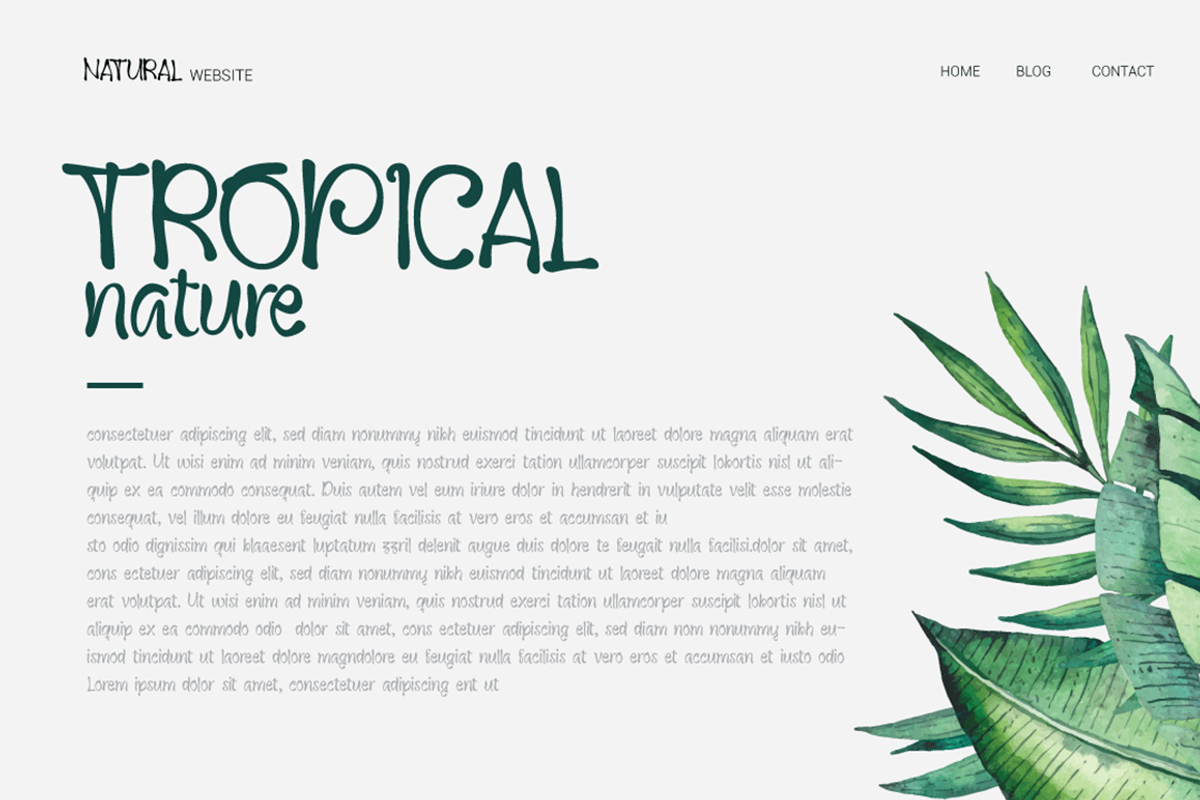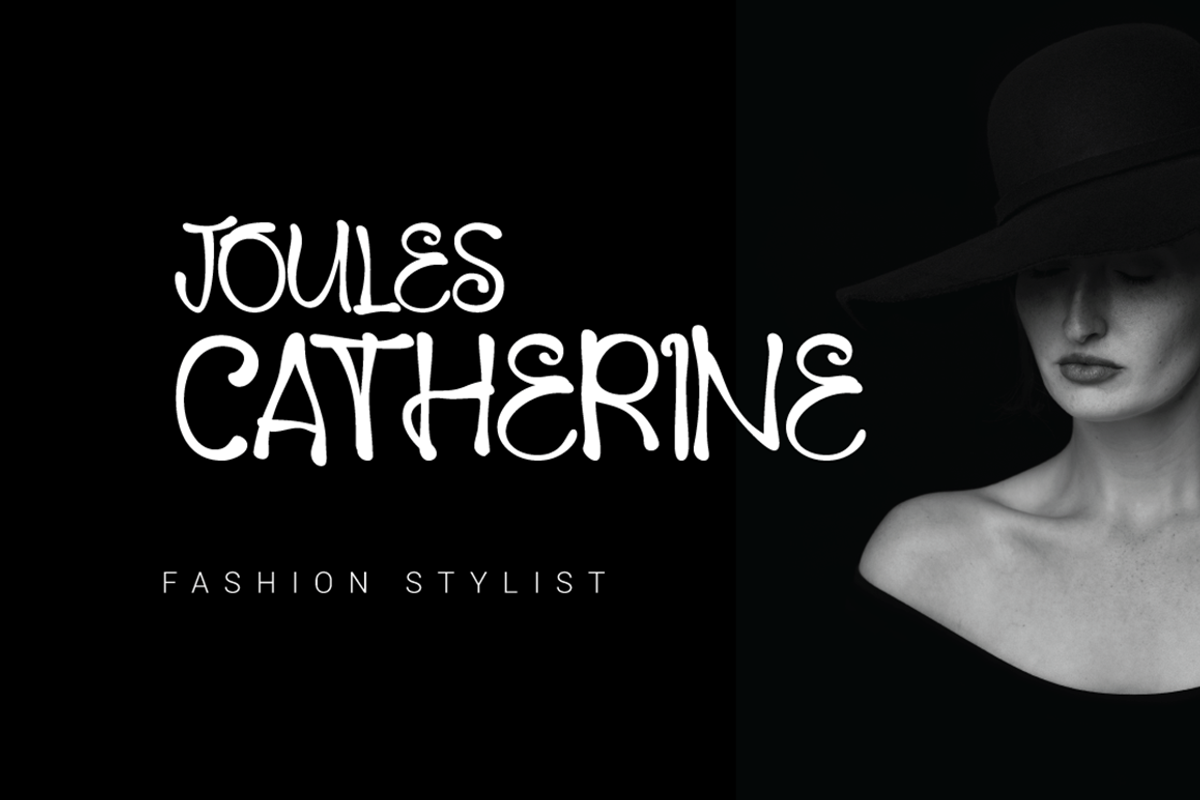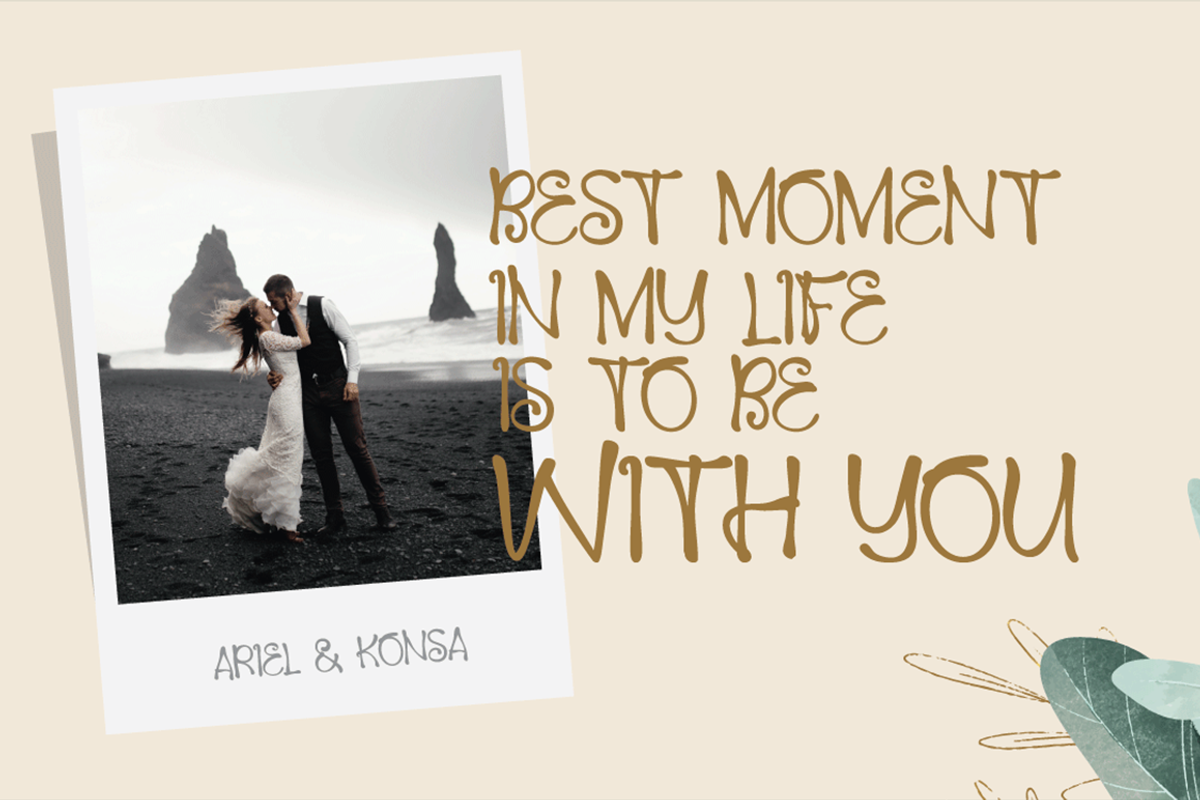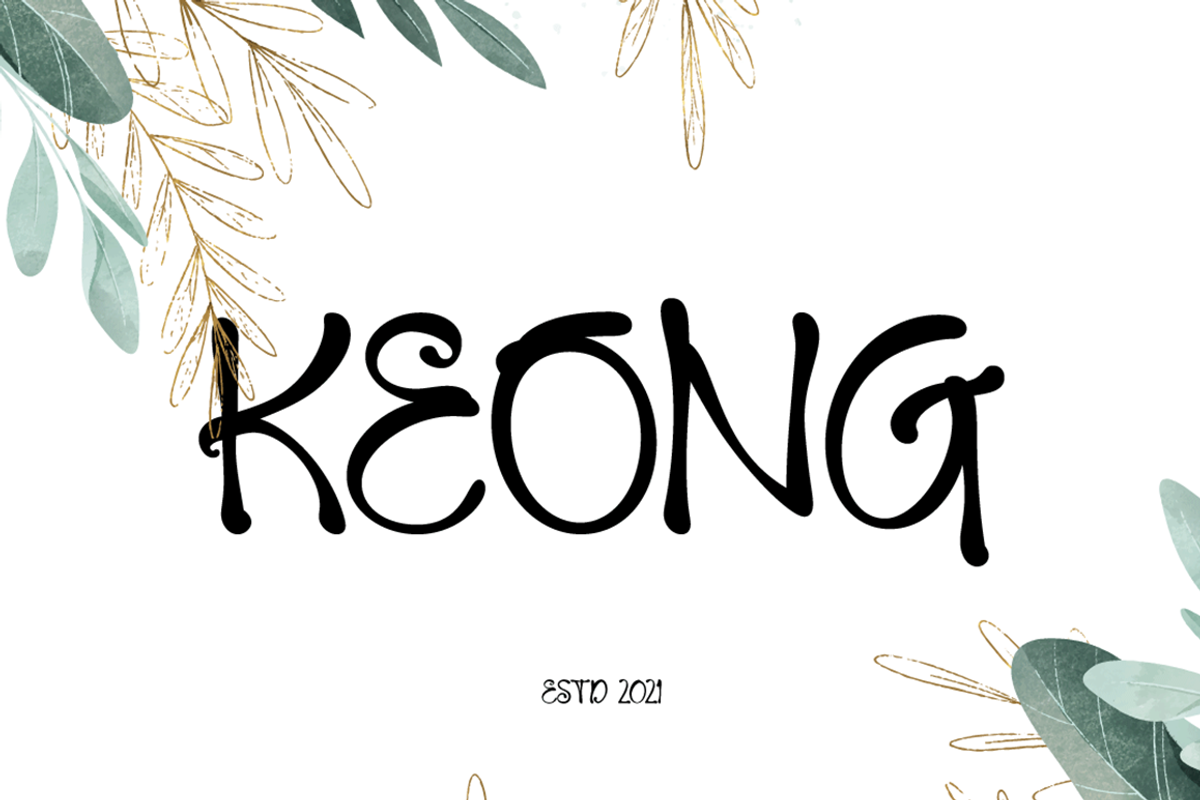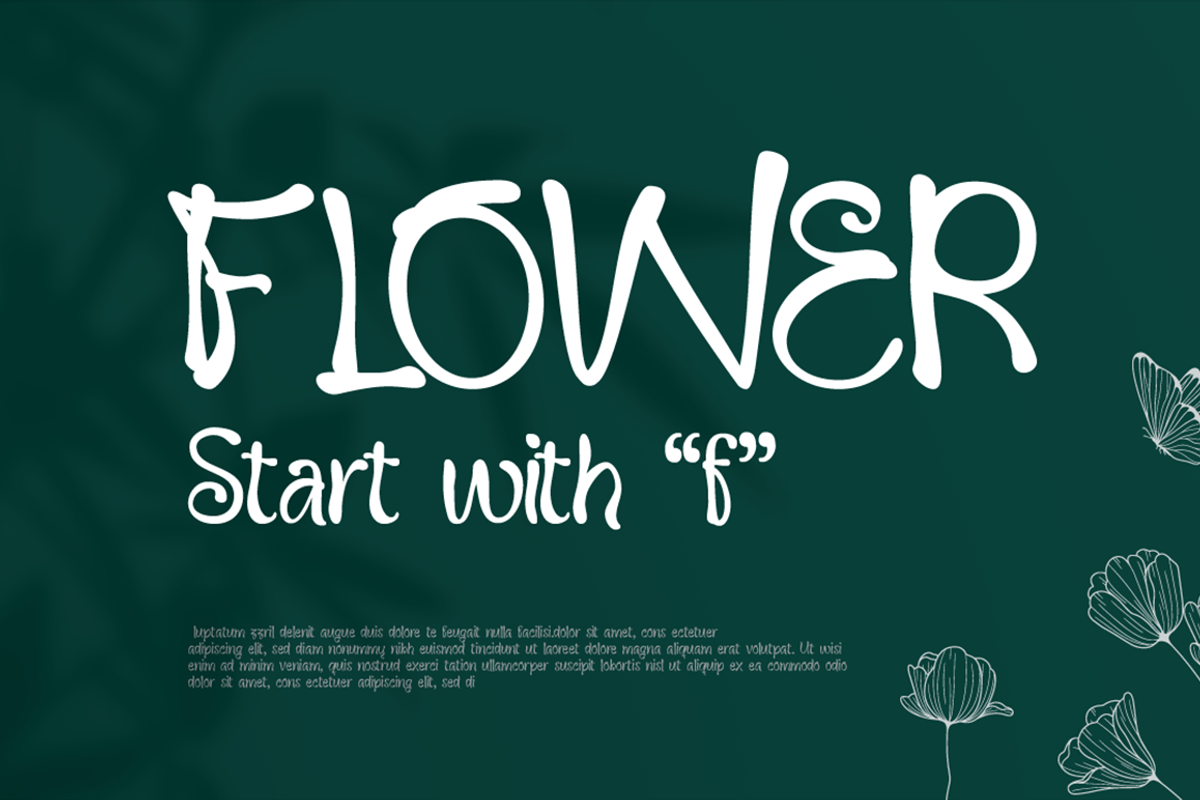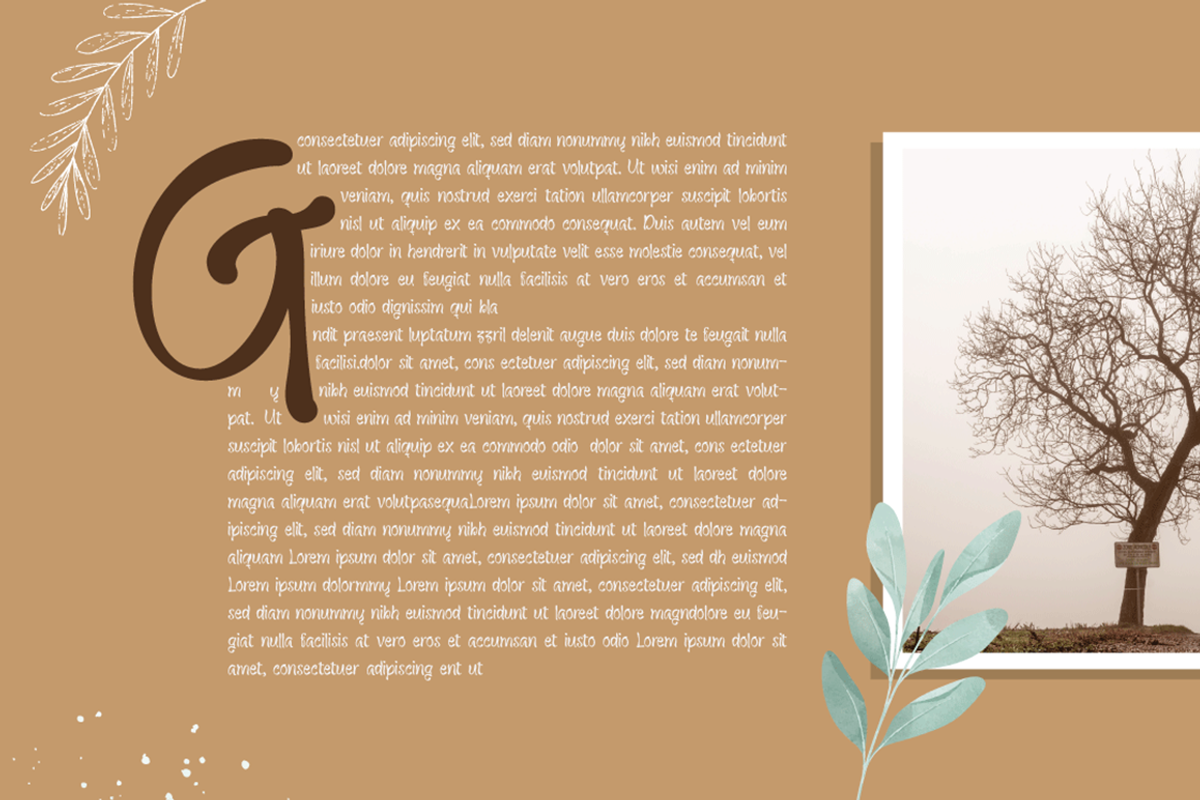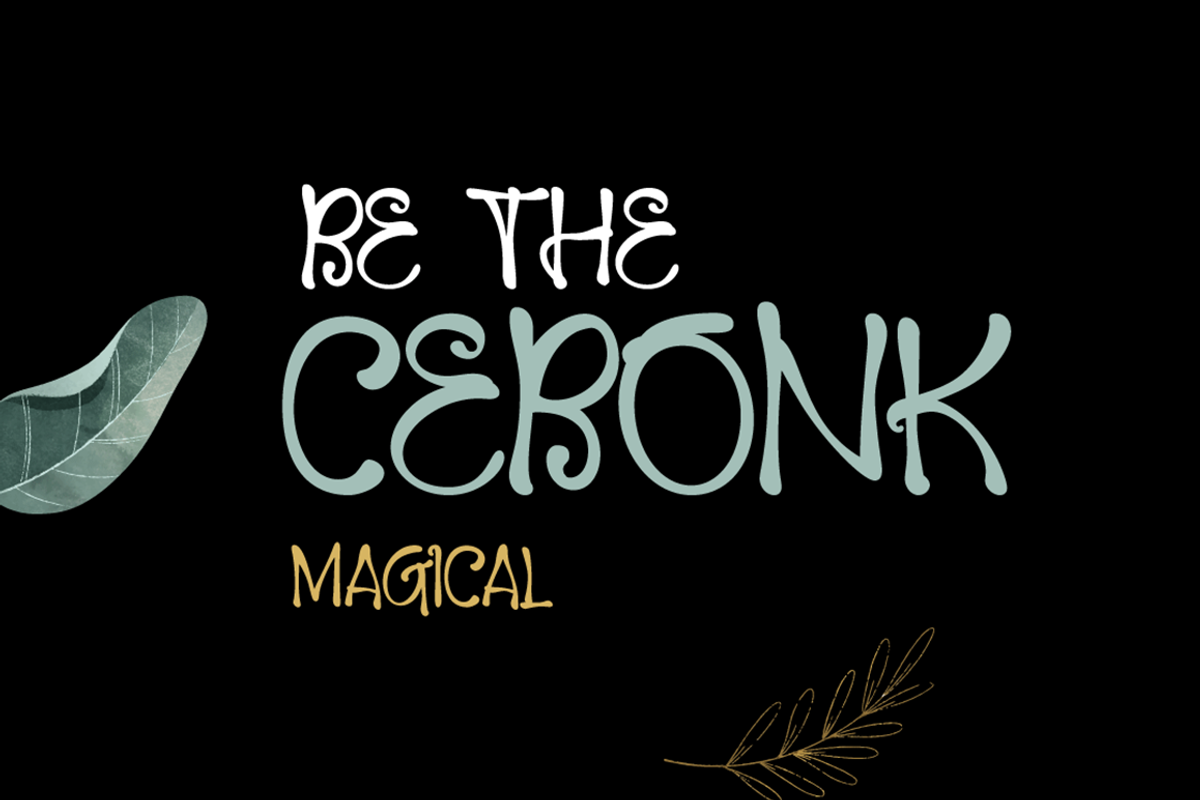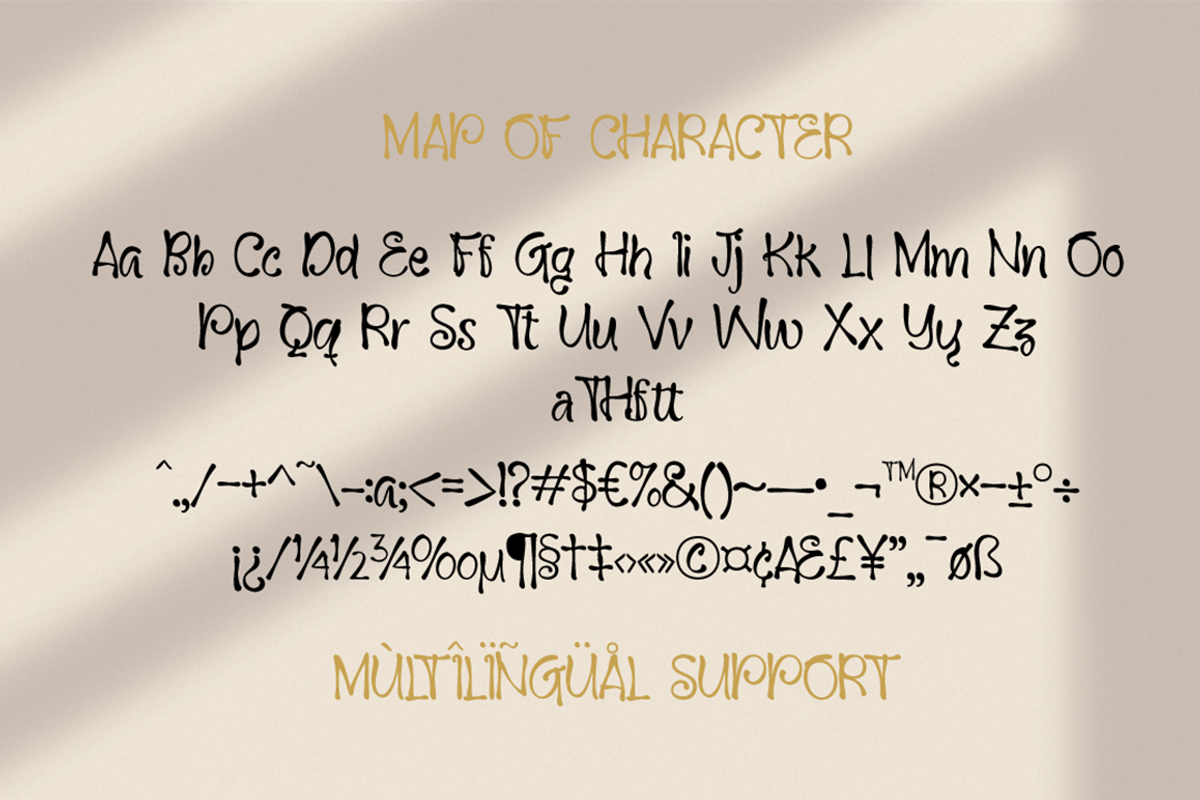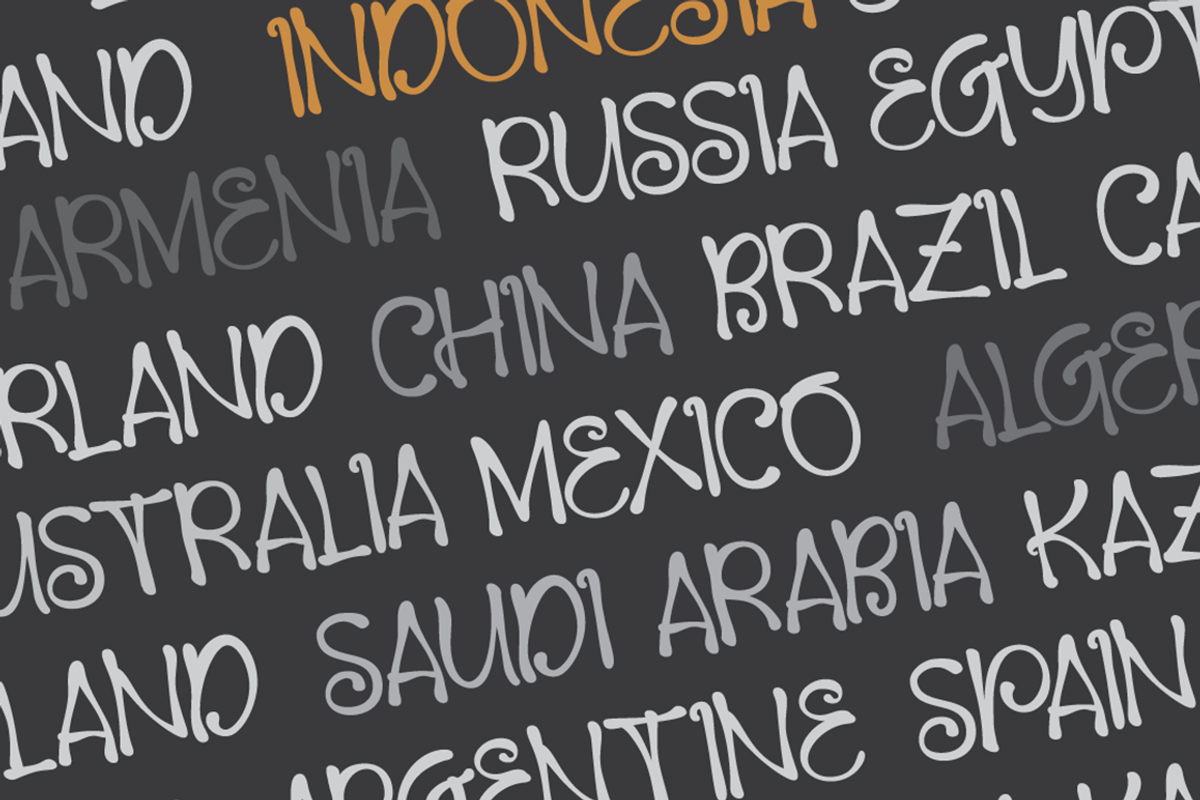
Keong Regular
Keong is Creative and attractive font that created with handwriting, the fonts comes unique typeface and joyful handwritten with ligatures and special alternate, this will make Keong Font chill your mind. This font is usable in all design projects and work perfectly to pair with any other font.
- Unique Style